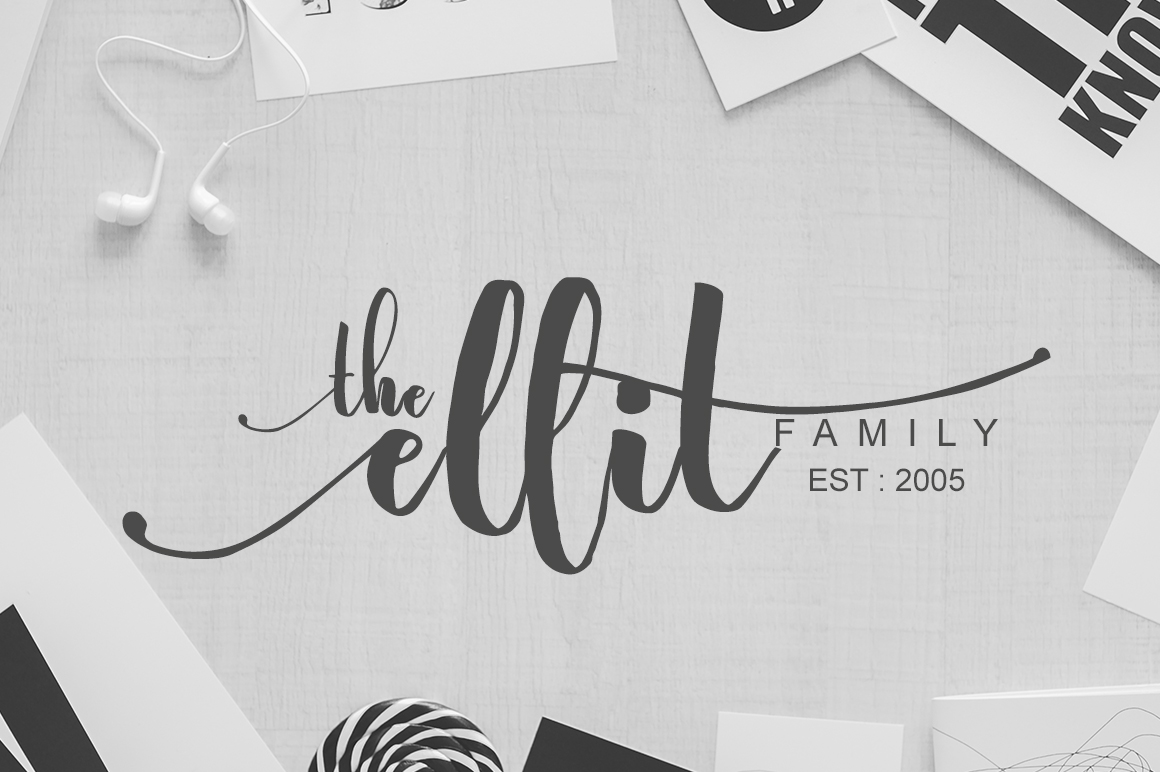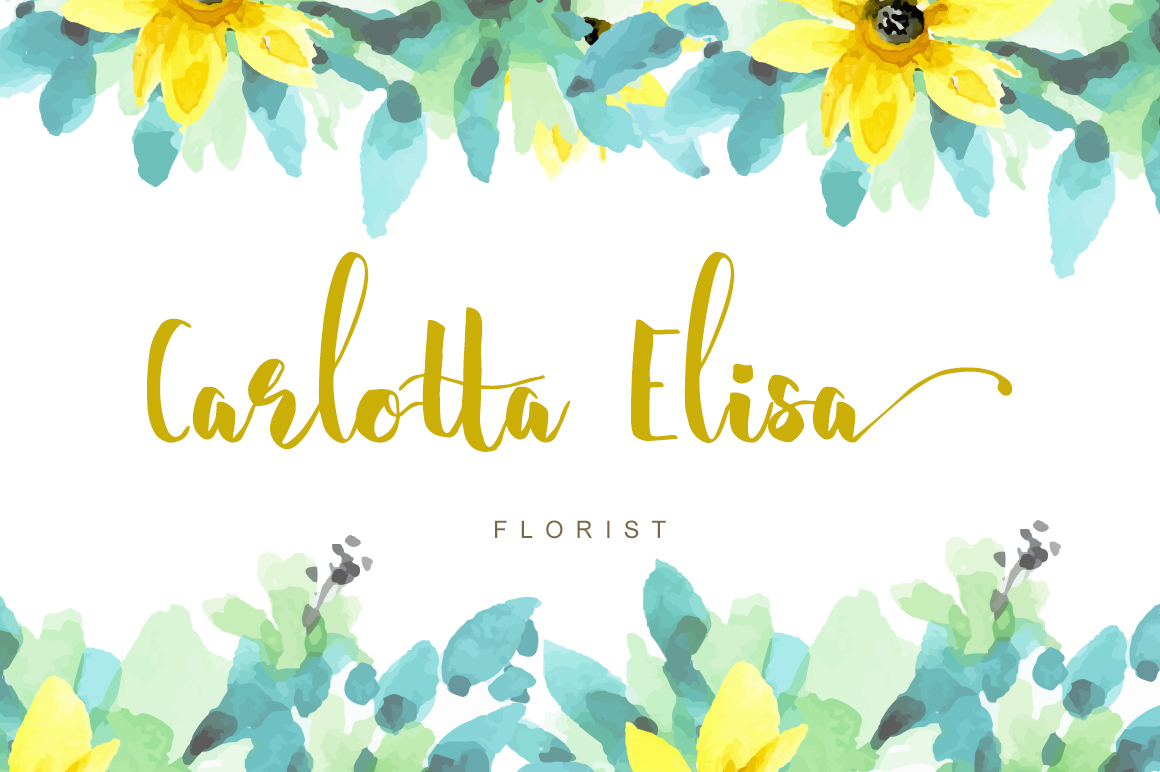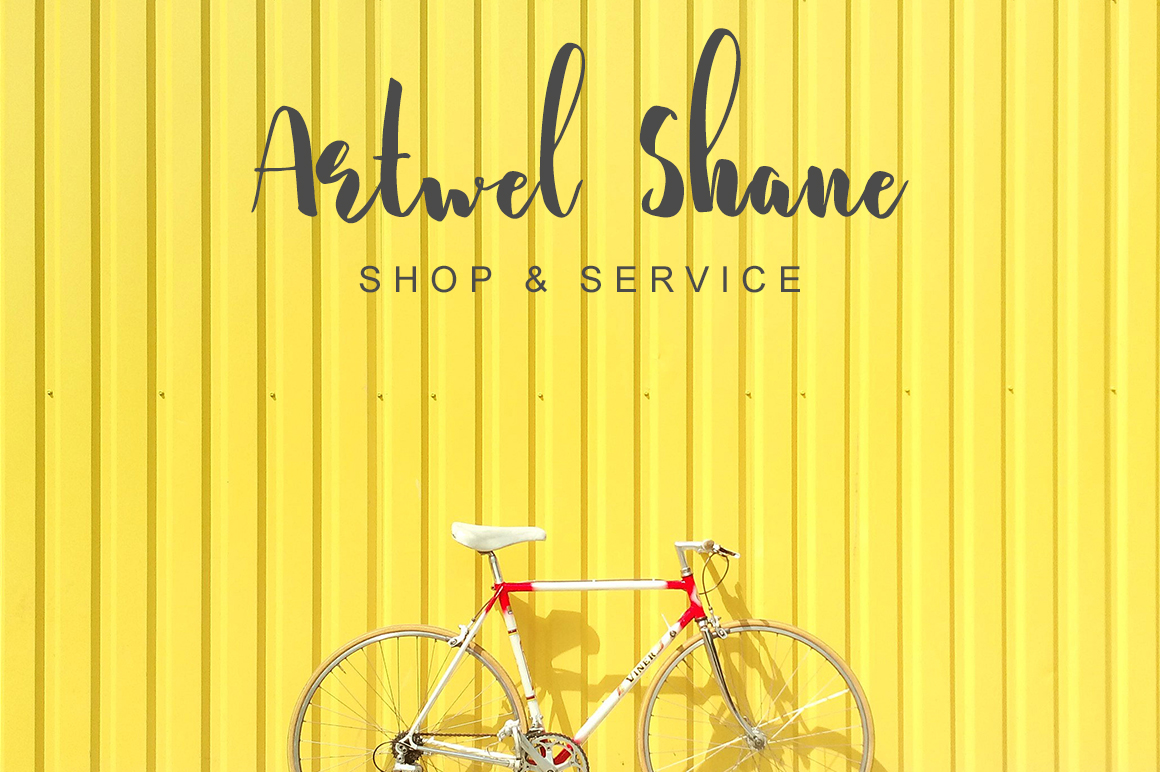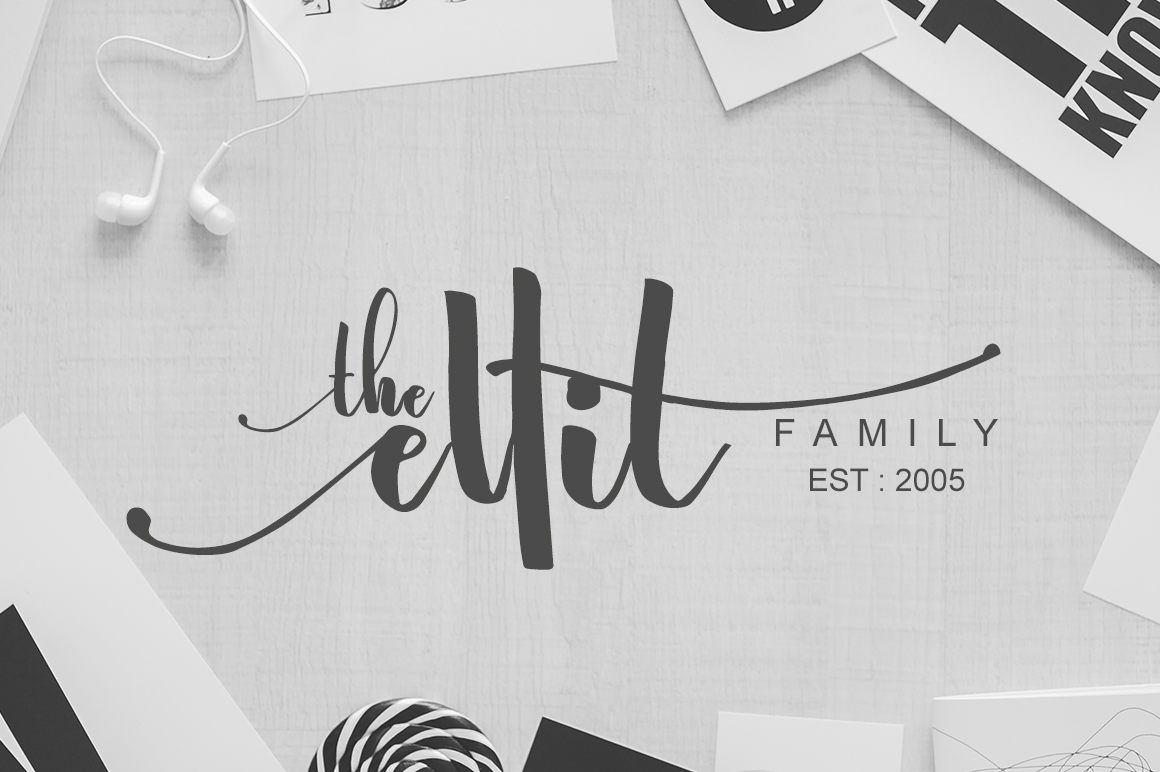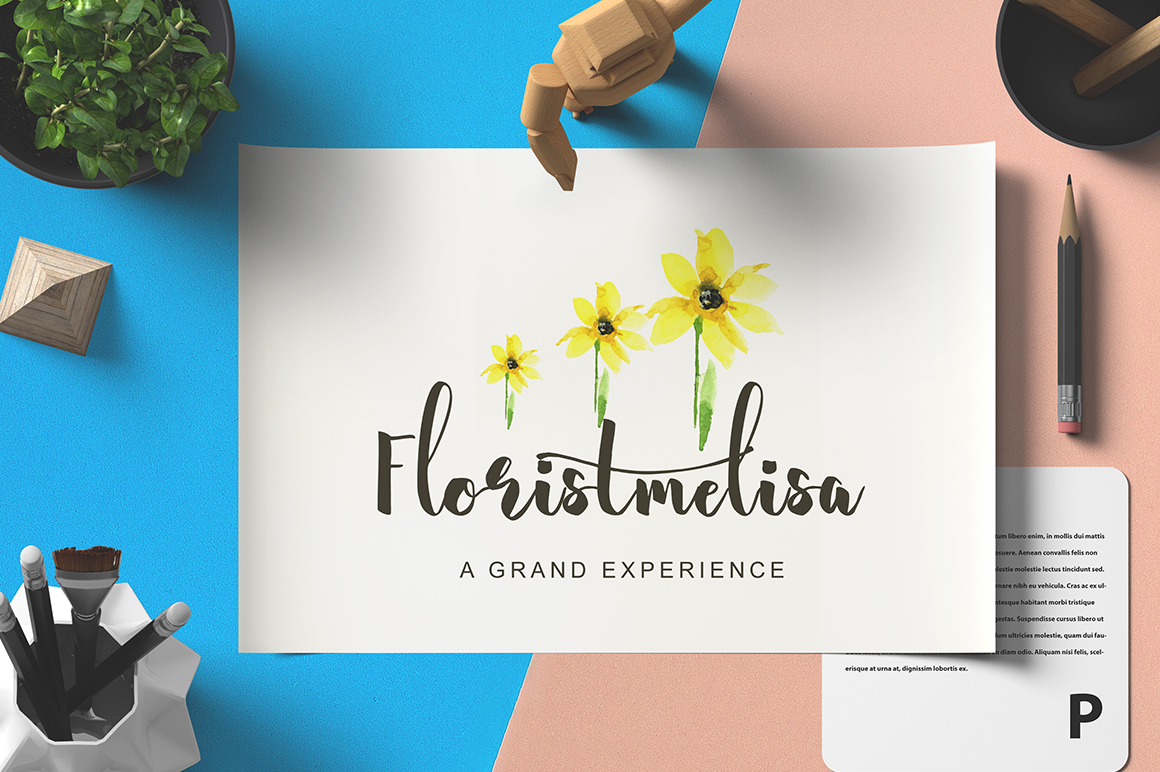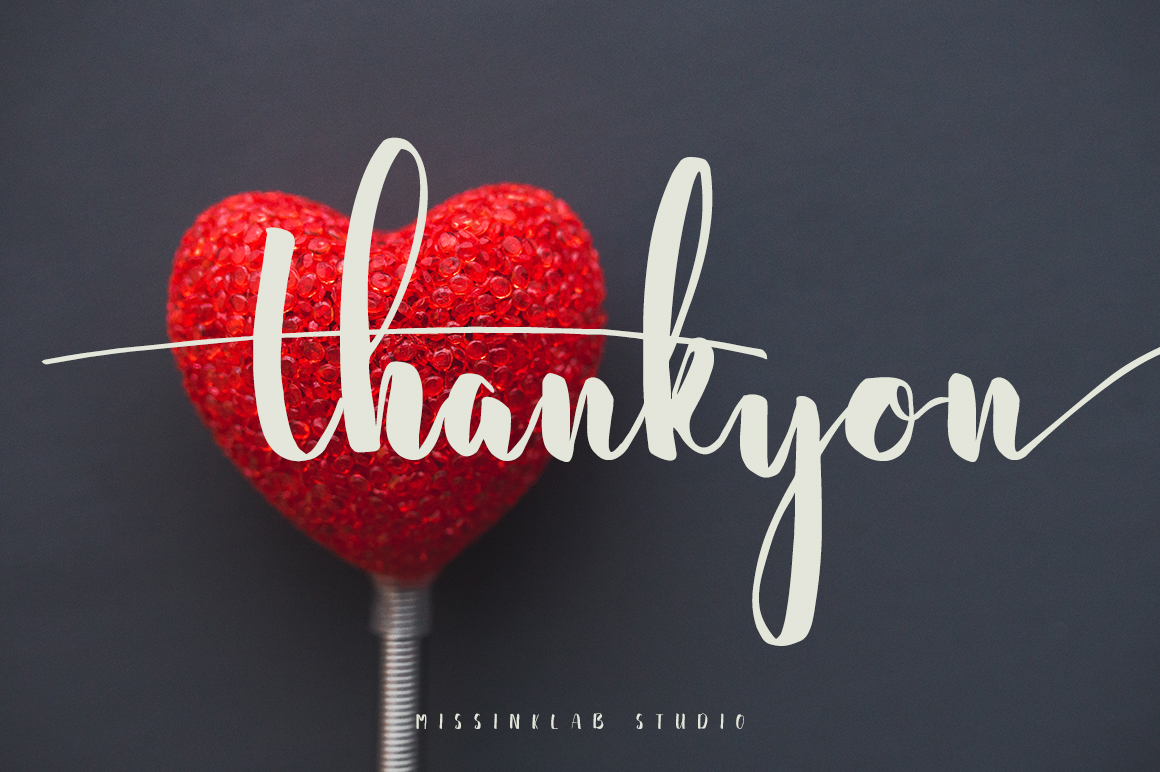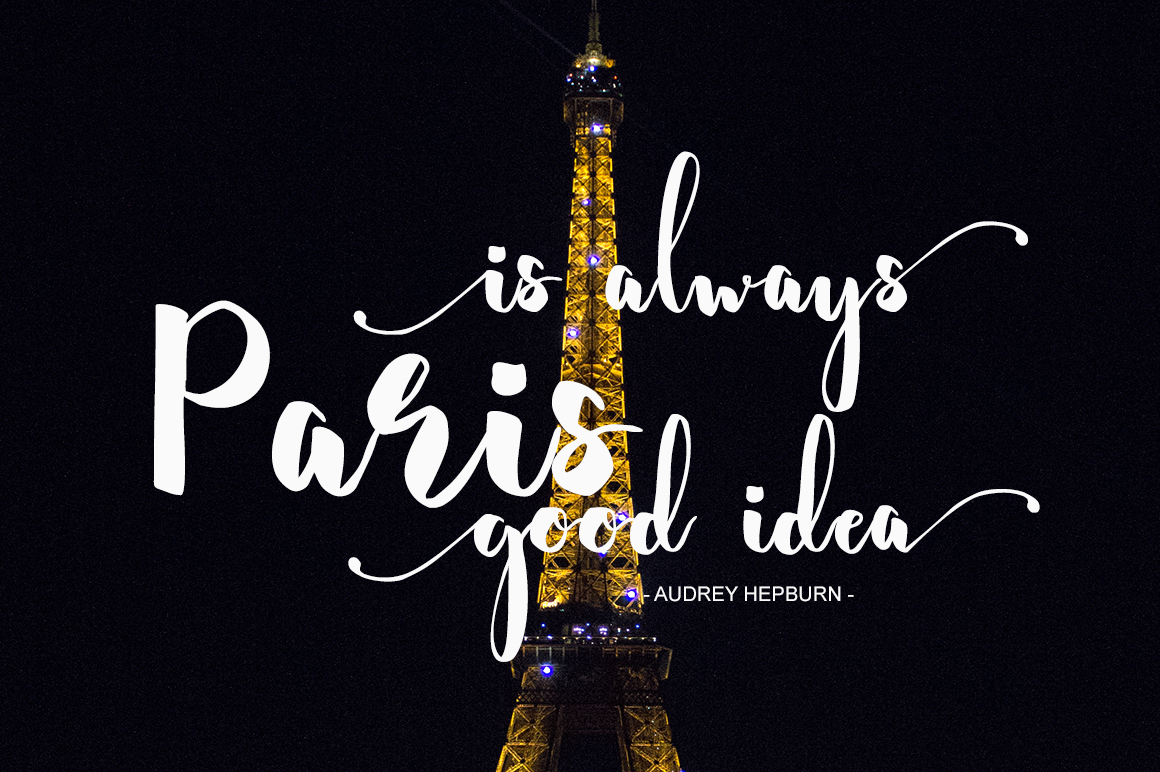
HomeScript FontsAlinkha Bothine Font Script Fonts Alinkha Bothine Font FacebookXPinterestWhatsApp Alinkha Bothine Font Poster 2 Alinkha Bothine Font Poster 3 Alinkha Bothine Font Poster 4 Alinkha Bothine Font Poster 5 Alinkha Bothine Font Poster 6 Alinkha Bothine Font Poster 7 Alinkha Bothine Font Poster 8 Alinkha Bothine Font Poster 9 Alinkha Bothine Font Poster 10 About Alinkha Bothine Font Alinkha Bothine is a stunning handmade script font with a classic style. DOWNLOAD NOW People also explored Sweet Monogram Font Rayya Revalinda Font Astoria Font Skull Kidz Font Month Bllach Font Bollinsh Hunt Font Mother May I Font Cuted Loven Font 308 0 TagsAlinkha Bothine Font Previous articleAletcia FontNext articleBanthei Font LEAVE A REPLY Cancel reply Comment: Please enter your comment! Name:* Please enter your name here Email:* You have entered an incorrect email address! Please enter your email address here Website: Save my name, email, and website in this browser for the next time I comment. Personal Use Free Yesstea Personal Use Free Read more about this font Rocketto Personal Use Free Read more about this font Black Personal Use Free Read more about this font Zeshane Personal Use Free Read more about this font BLOG Top 10 Handwritten Fonts That Elevate Your Designs Top 10 Handwritten Fonts That Will Elevate Your Designs Handwritten fonts bring a warm, personal touch to every creative project. Whether you're designing logos, invitations,... Best Fonts for YouTube Videos: Make Your Thumbnails Stand Out Transform Your Website: Elevate Your Typography with 7 Best Web Font Generators Using Fonts in Digital Marketing: Tips to Strengthen Your Brand Identity